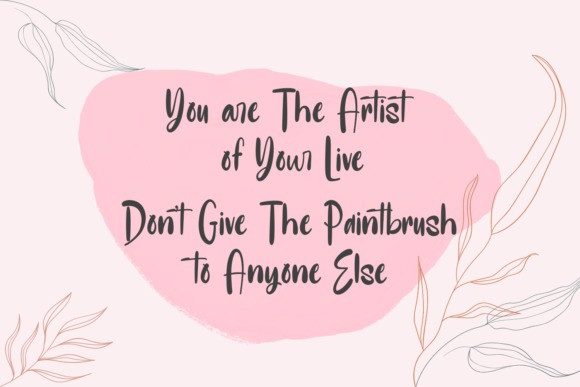
Saturday Hustle Script Font
This is casual script font, with clean bold stroke and fun character. Wayfaring came with opentype features such stylistic alternates, stylistic sets & amp; amp; ligatures good for logotype, poster, badge, book cover, tshirt design, packaging and any more.